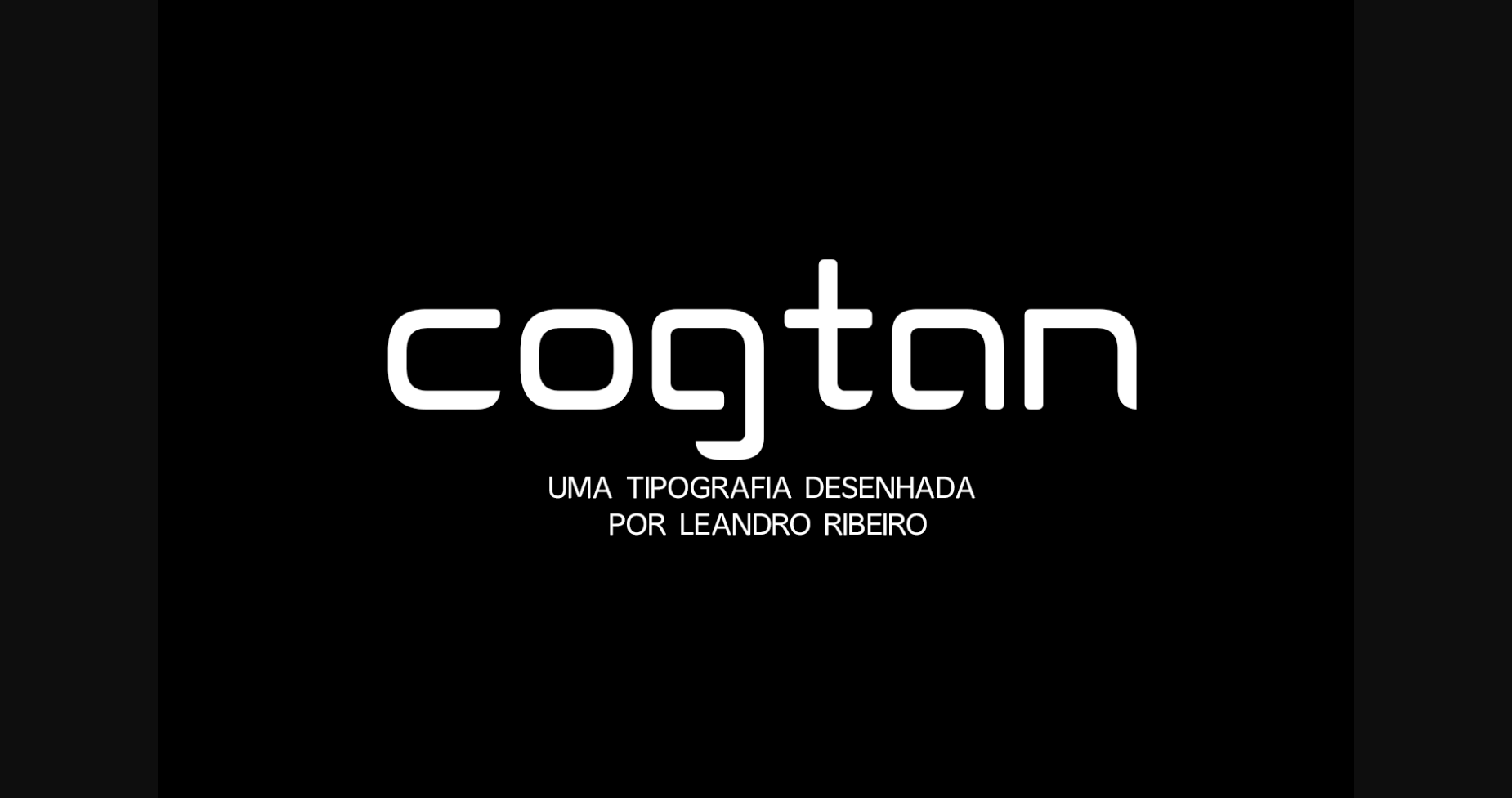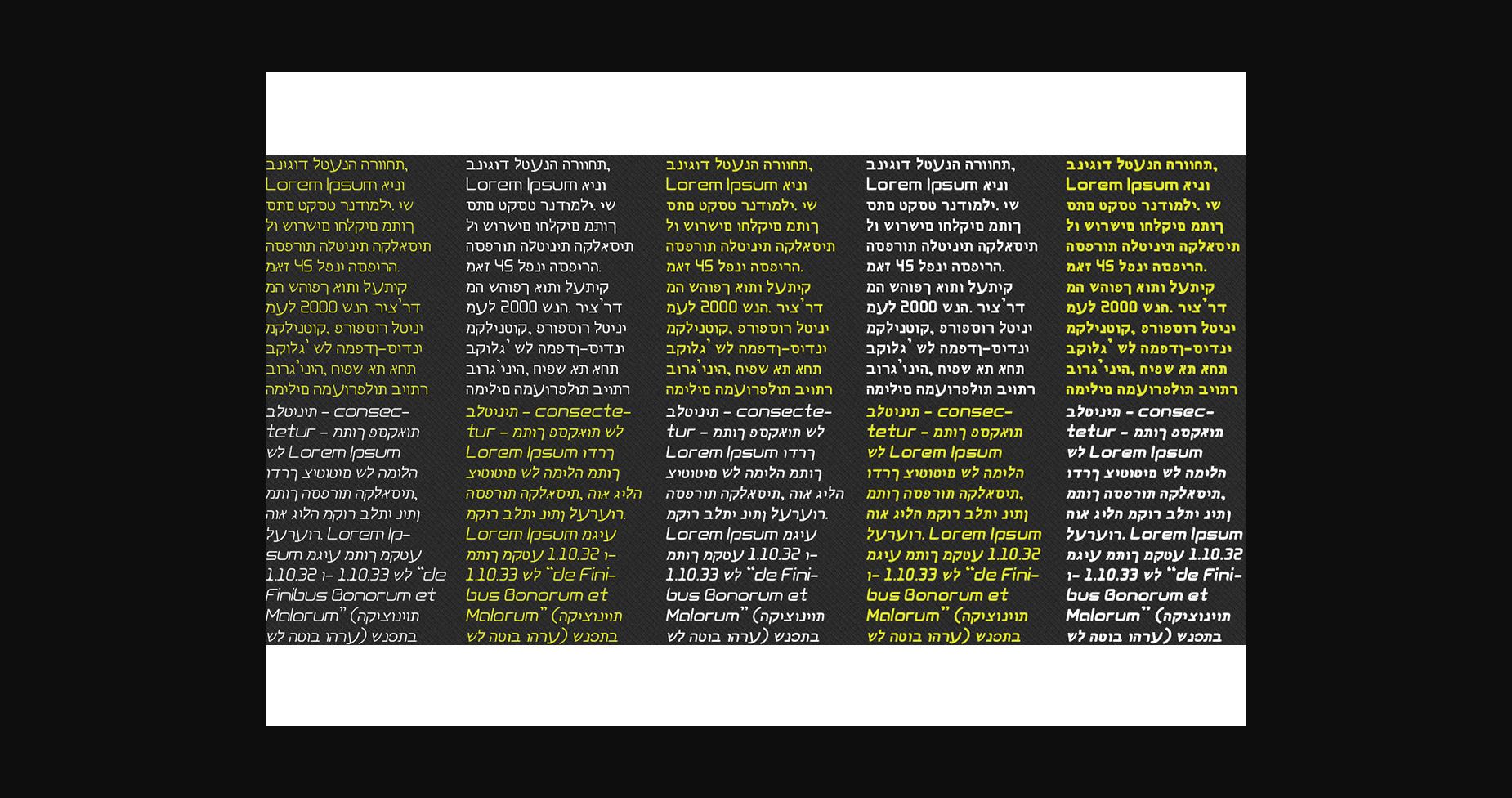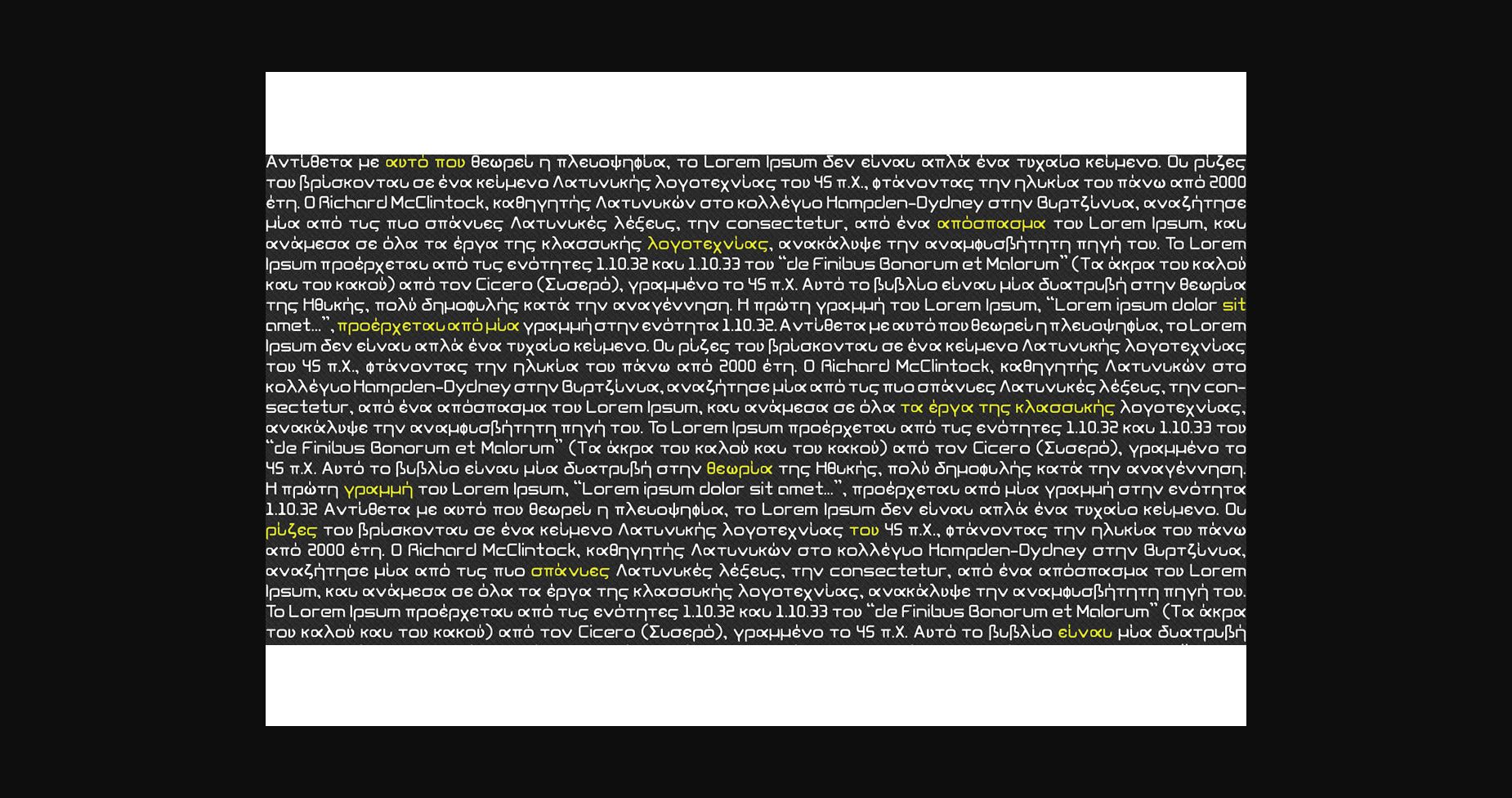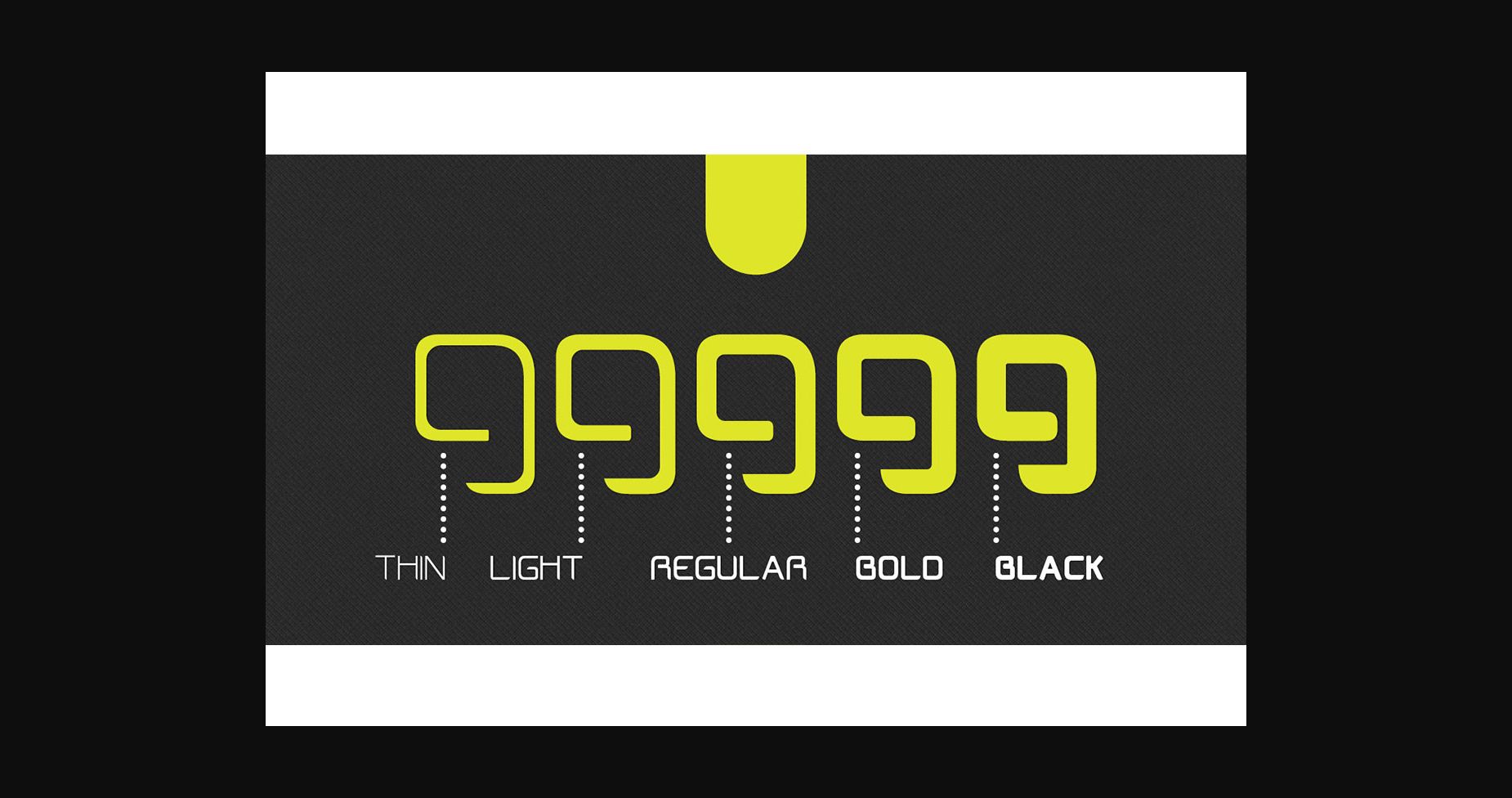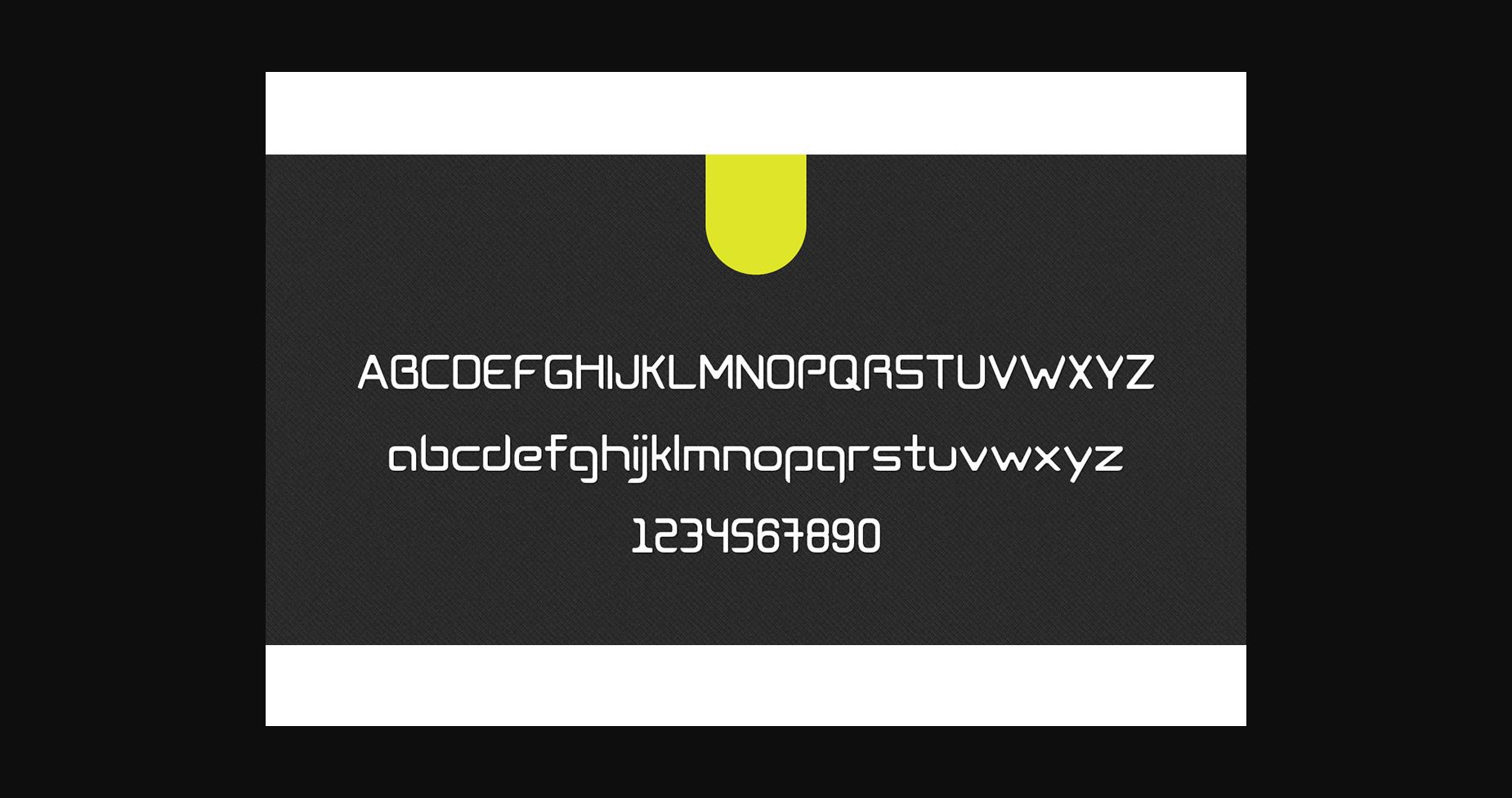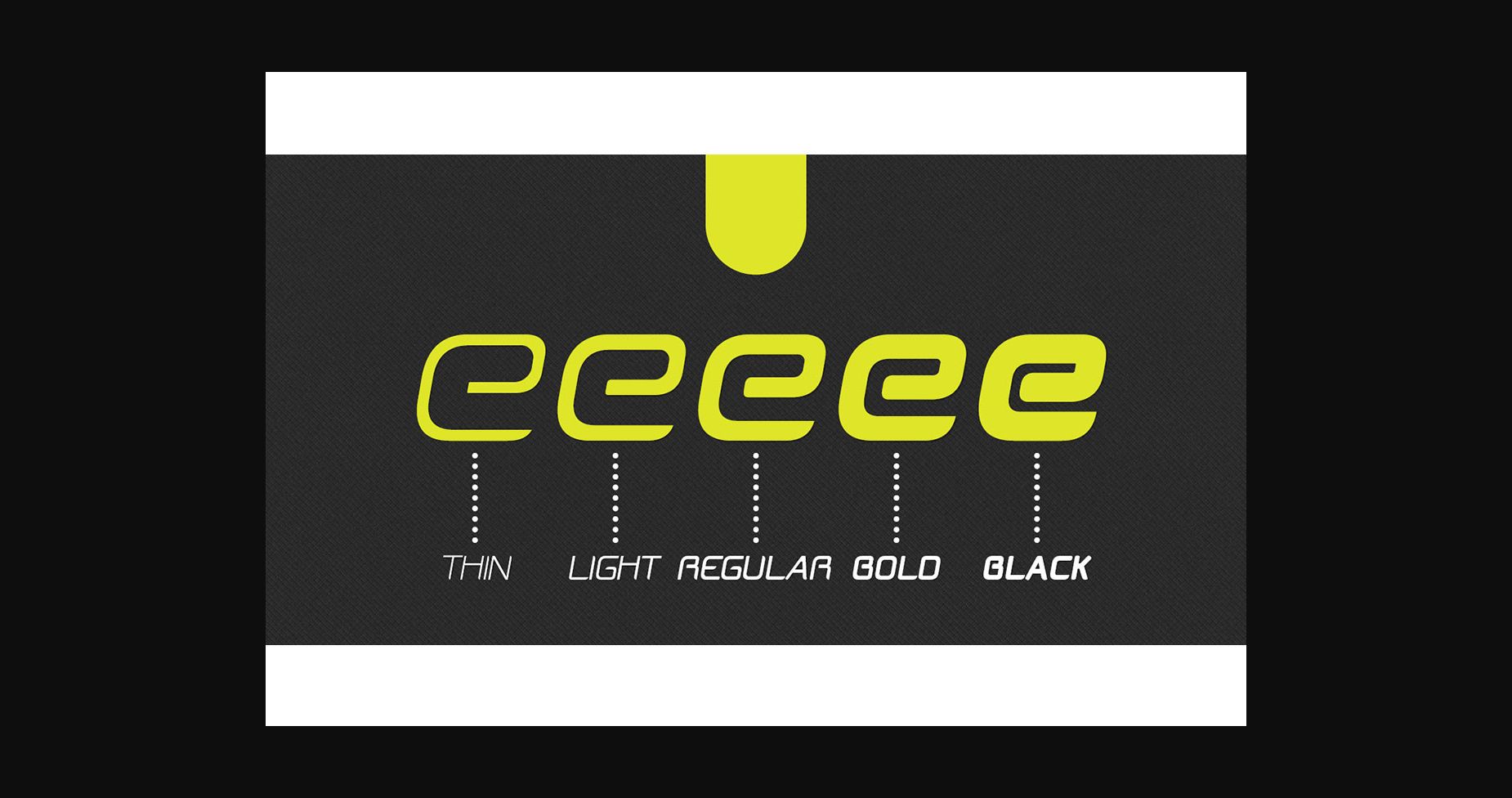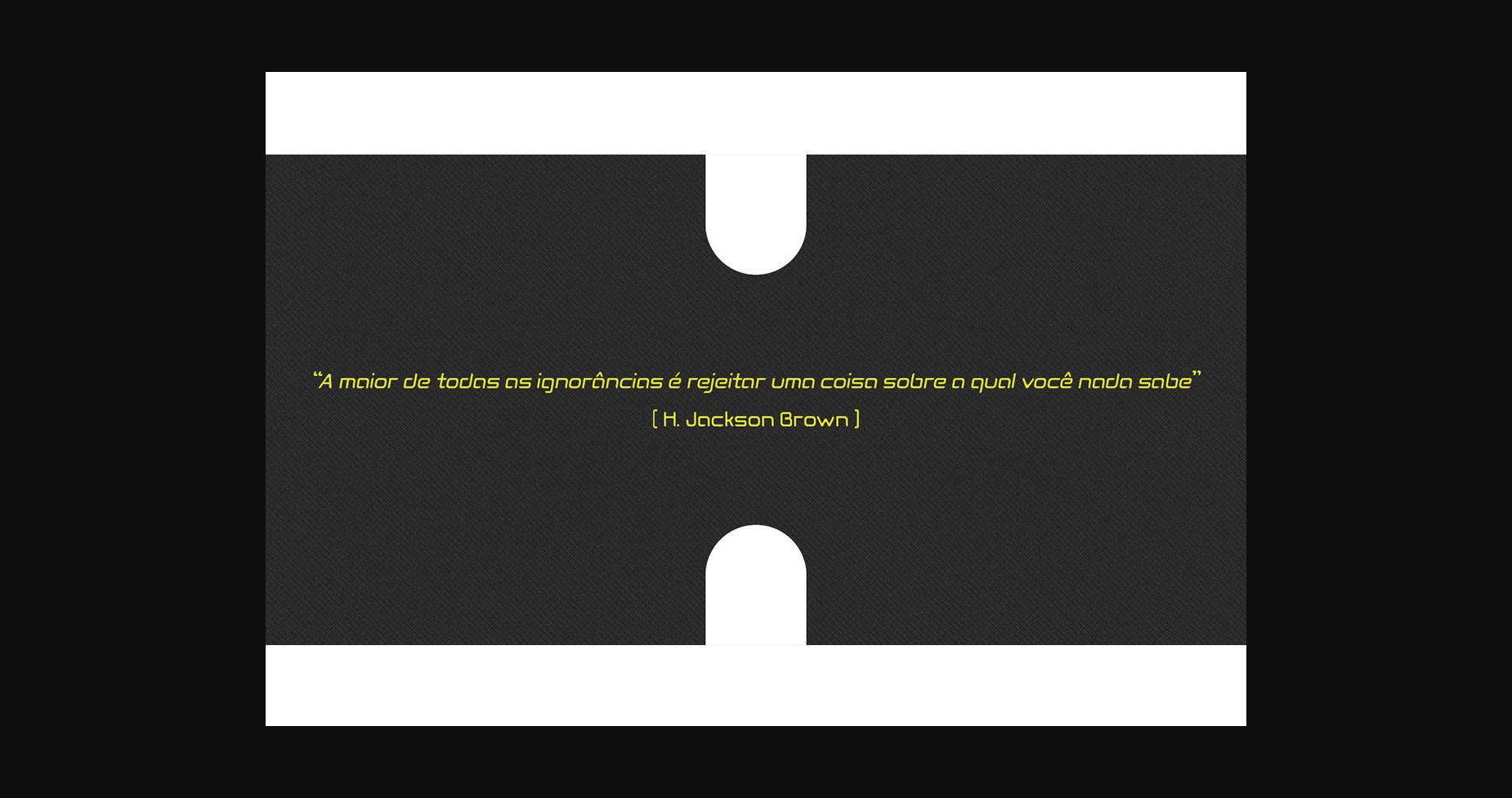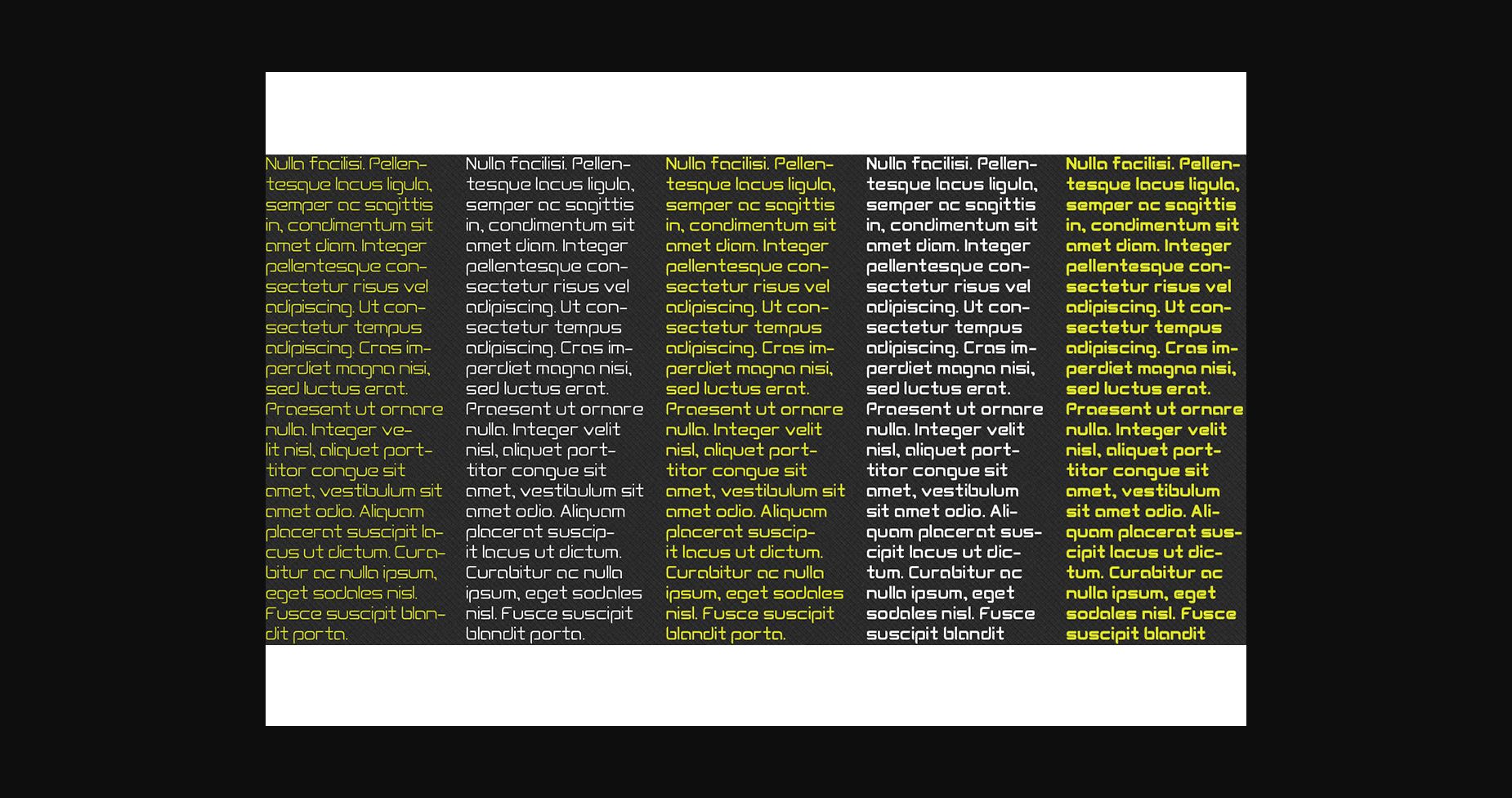
Cogtan is a cool and geometric styled sans serif font. It is perfect for product packaging, branding project, magazine covers, social media, wedding, or just used to express words above the background.